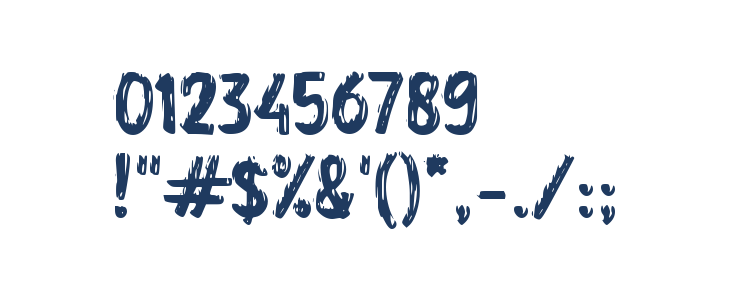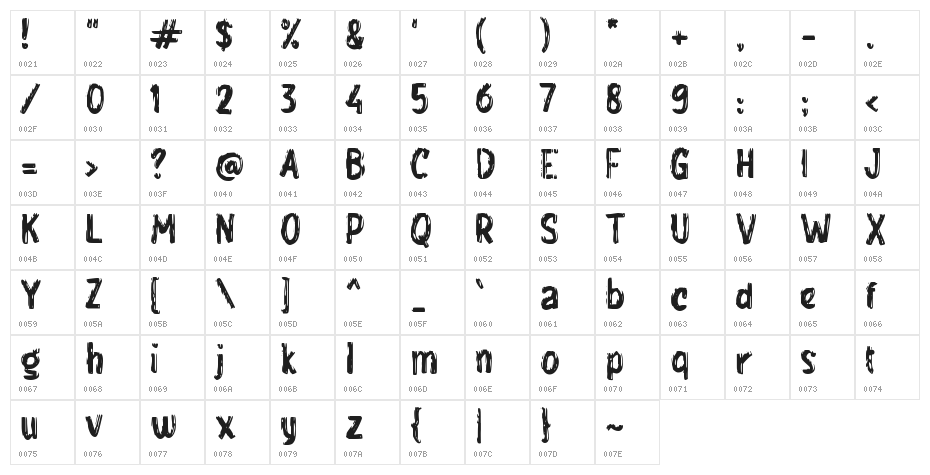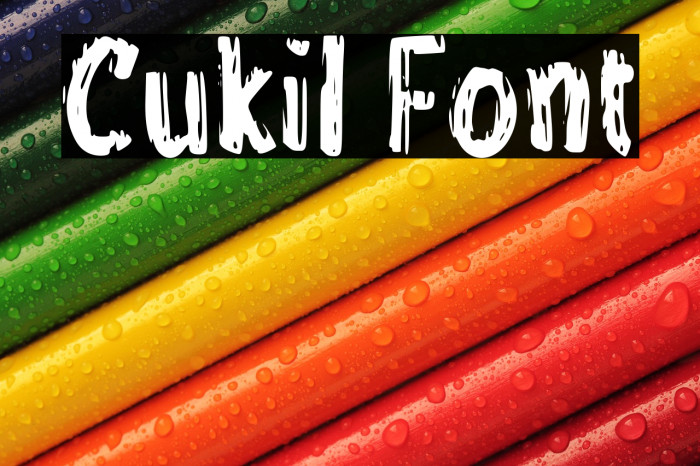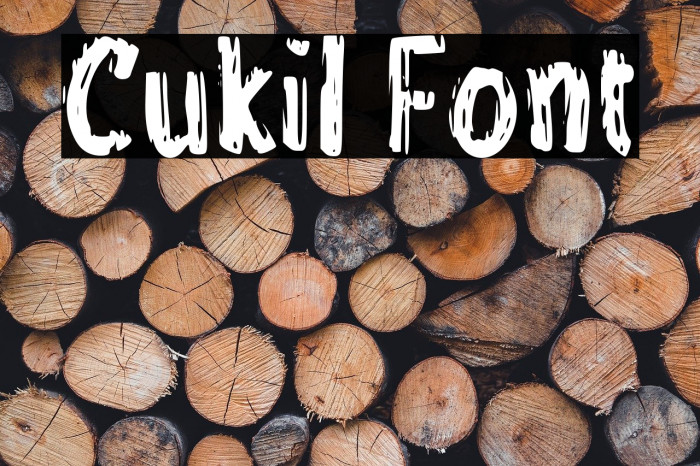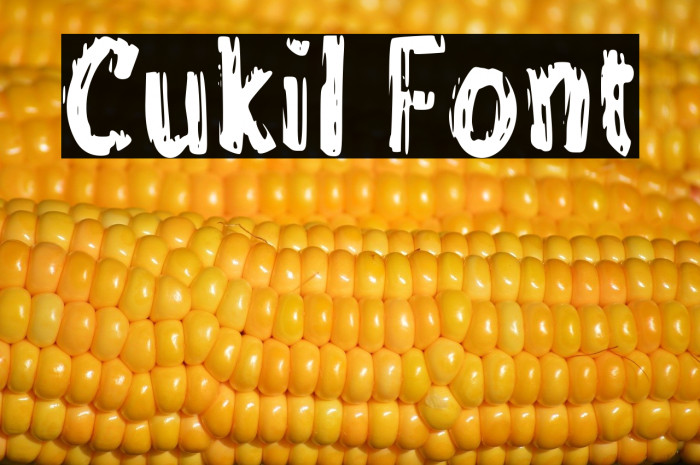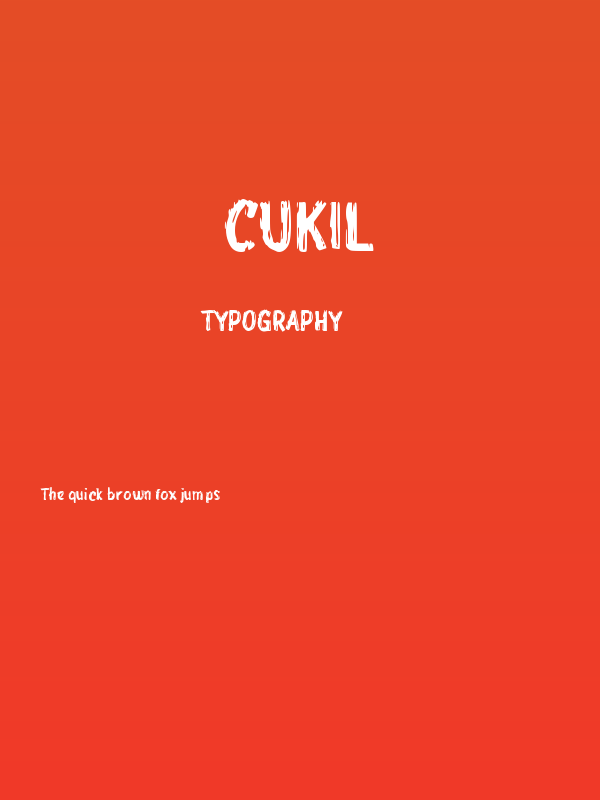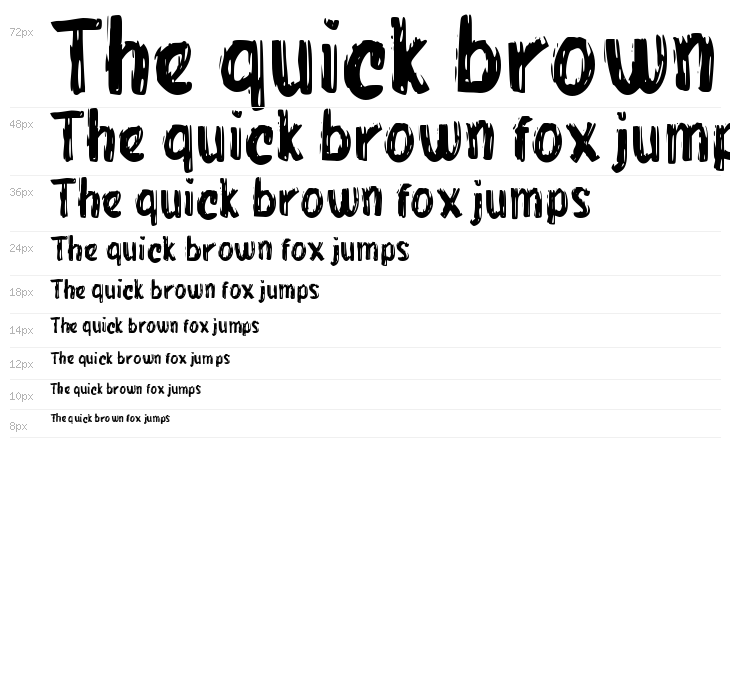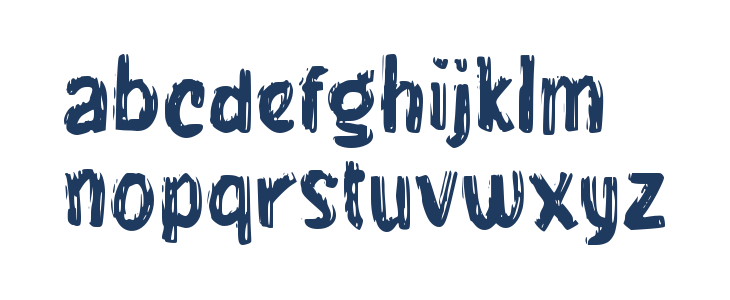
Cukil Font
Cukil Description
This font features a bold, distressed style with a rough, hand-painted appearance. The characters have an uneven texture, giving them a dynamic and energetic feel. The uppercase and lowercase letters maintain a consistent height, while the numbers and special characters follow the same rugged aesthetic. The font's irregular edges and brush-like strokes create a sense of movement and spontaneity, making it ideal for projects that require a bold, artistic touch. Its unique style is both eye-catching and versatile, suitable for various creative applications.
| Proposed Projects | Ideal for posters, album covers, branding, and artistic projects that require a bold, expressive style. |